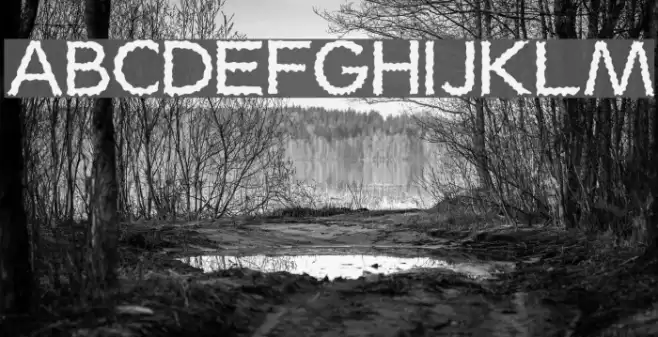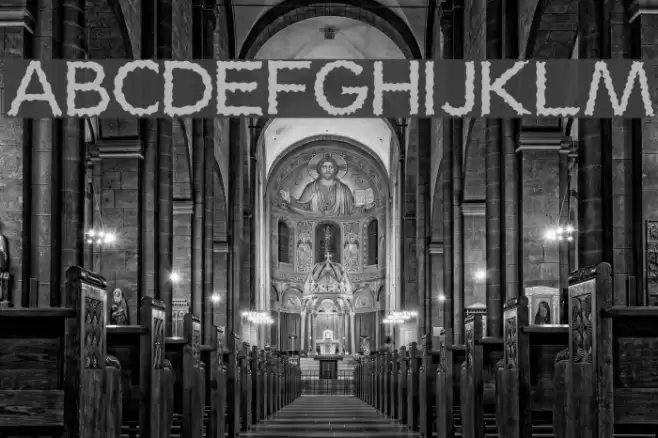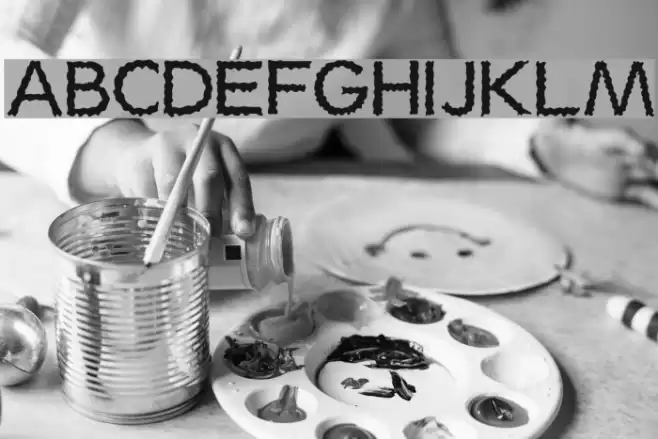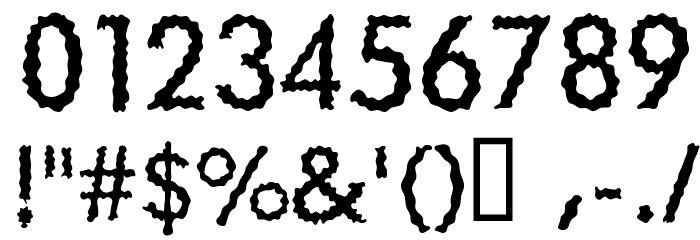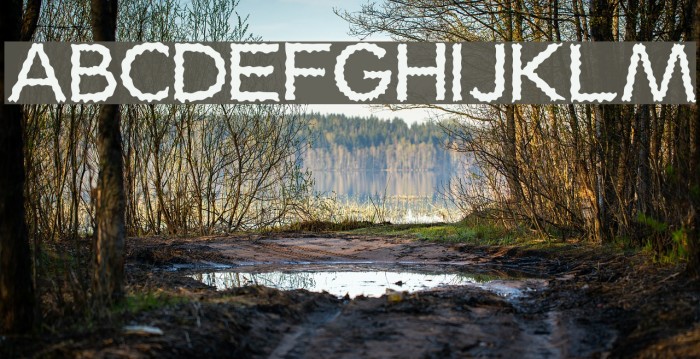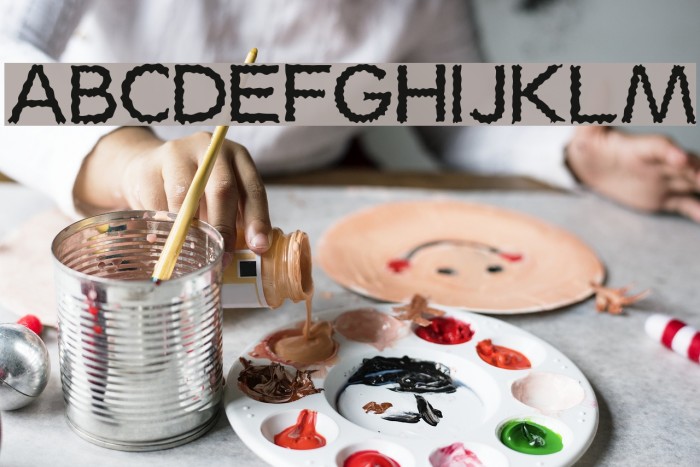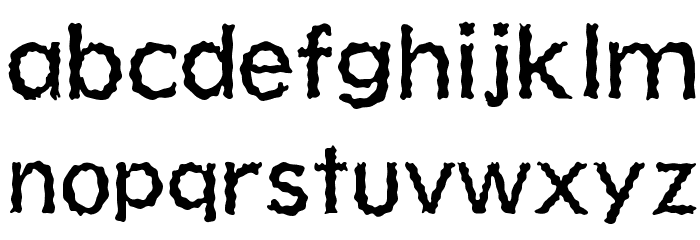
Shiver Font
Shiver Description
This font features a unique, jagged design that gives the appearance of being hand-drawn with a shaky or trembling effect. The characters are bold and have a rough, textured edge that adds a sense of movement and energy. The uppercase and lowercase letters maintain a consistent style, with the uppercase being slightly taller and more pronounced. Numbers and special characters follow the same design principles, ensuring uniformity across all glyphs. The overall look is playful yet edgy, making it suitable for projects that require a distinctive and eye-catching typeface.
A bold, jagged font with a hand-drawn, trembling effect from Halloween fonts.
- Proposed Projects: Ideal for Halloween-themed designs, edgy posters, unique branding, or any project needing a standout font.